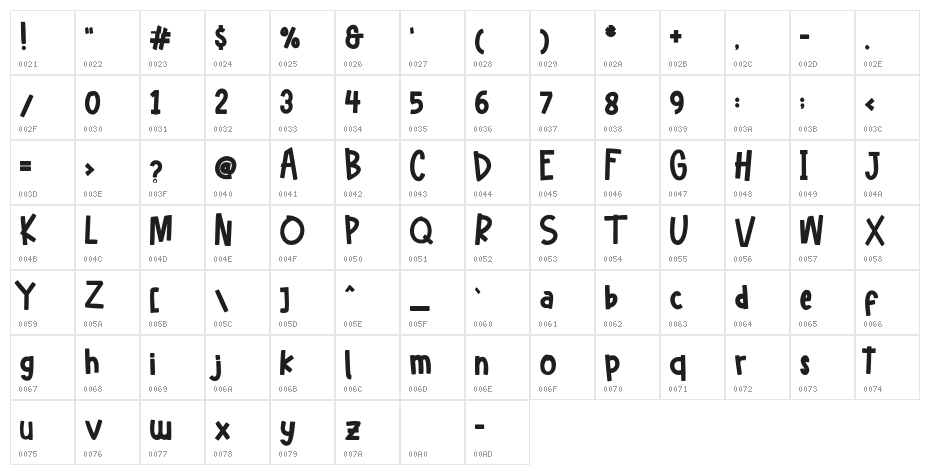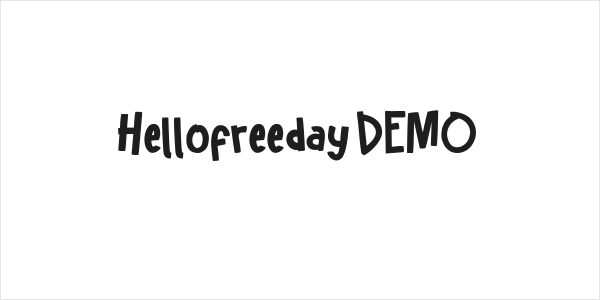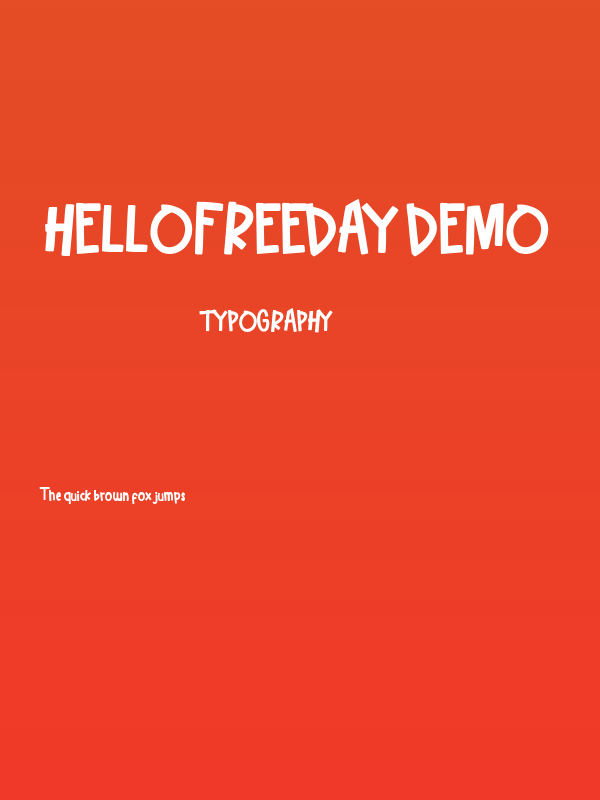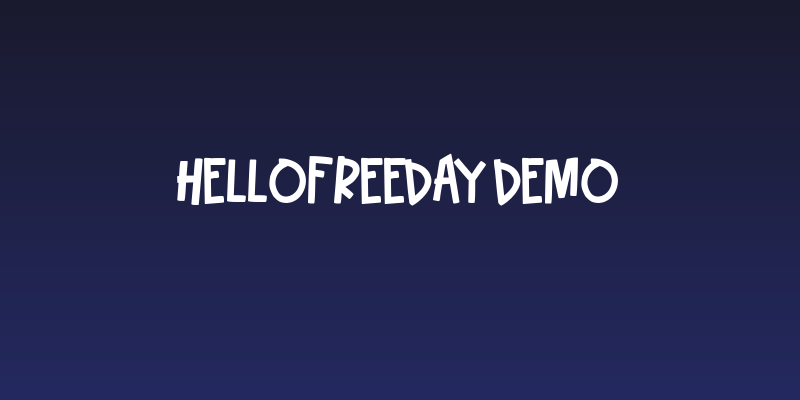
Hellofreeday DEMO Font
Hellofreeday DEMO Description
This playful and bold font features a hand-drawn, cartoonish style with irregular, slightly exaggerated shapes. The uppercase letters are tall and slightly narrow, while the lowercase letters maintain a consistent height, adding to the whimsical appearance. Numbers and special characters follow the same playful design, making them stand out with their unique forms. The font's strokes are thick and consistent, providing a strong visual impact. Its informal and fun style makes it ideal for projects that require a touch of creativity and personality.
| Overall Style | Playful, Cartoonish, Hand-drawn |
| Use Case | Headlines, Posters, Branding |
| Proposed Projects | Ideal for children's books, comic strips, playful branding, and creative posters. |